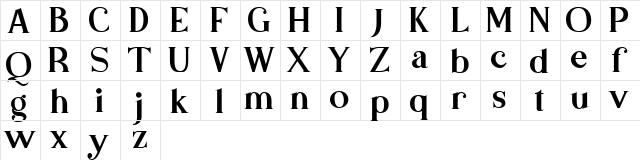
Basics Serif Free Regular
| Foundry | Youthlabs Studio |
| Designer | Muhammad Fathi Al Ghazi |
Design Context for Basics Serif Free Typeface
Basics Serif Free carries the refined structure of traditional serif typography, with bracketed terminals and considered proportions that communicate credibility and craft.